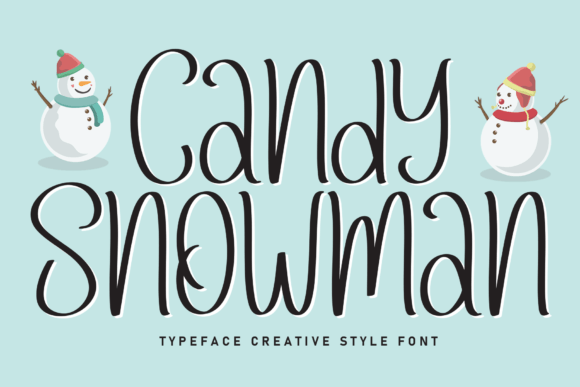
Introducing Candy Snowman Font, the ultimate choice for adding a touch of sweetness and friendliness to your designs. This charming handwritten font is created by the talented Roronoa Zoro.S.P.D. and is the perfect companion for all your creative endeavors.
With its natural and unique style, Candy Snowman Font brings a delightful and personal touch to any project. Whether you're designing a brochure, crafting a logo, or creating eye-catching social media graphics, this font is your go-to solution. It effortlessly captures attention and leaves a lasting impression on your audience.
What sets Candy Snowman Font apart is its versatility. It seamlessly blends with various design themes, making it suitable for a wide range of projects. From romantic wedding invitations to playful birthday cards, this font adapts to any mood or occasion, adding a touch of magic to your creations.
Embrace the endless possibilities that Candy Snowman Font offers. Let your imagination run wild as you explore its captivating curves and elegant strokes. Each letter is meticulously crafted, showcasing the dedication and artistry behind this font. With every stroke, you'll witness the warmth and charm it brings to your designs.
But Candy Snowman Font isn't just visually appealing; it also possesses a powerful emotional impact. Its organic and handwritten nature evokes a sense of nostalgia and authenticity. It instantly creates a connection with your audience, drawing them in and captivating their hearts.
When it comes to marketing your products or services, using the best fonts is crucial. Candy Snowman Font ensures that your message stands out from the crowd. Its eye-catching appeal and distinctiveness make it the perfect choice for brochure design. With this font, your brochures will captivate readers and leave a lasting impression, ultimately boosting your sales and brand recognition.
Don't settle for ordinary fonts when you can have the extraordinary. Candy Snowman Font is the epitome of creativity and innovation, elevating your designs to new heights. It is the secret ingredient to making your projects truly remarkable and unforgettable.